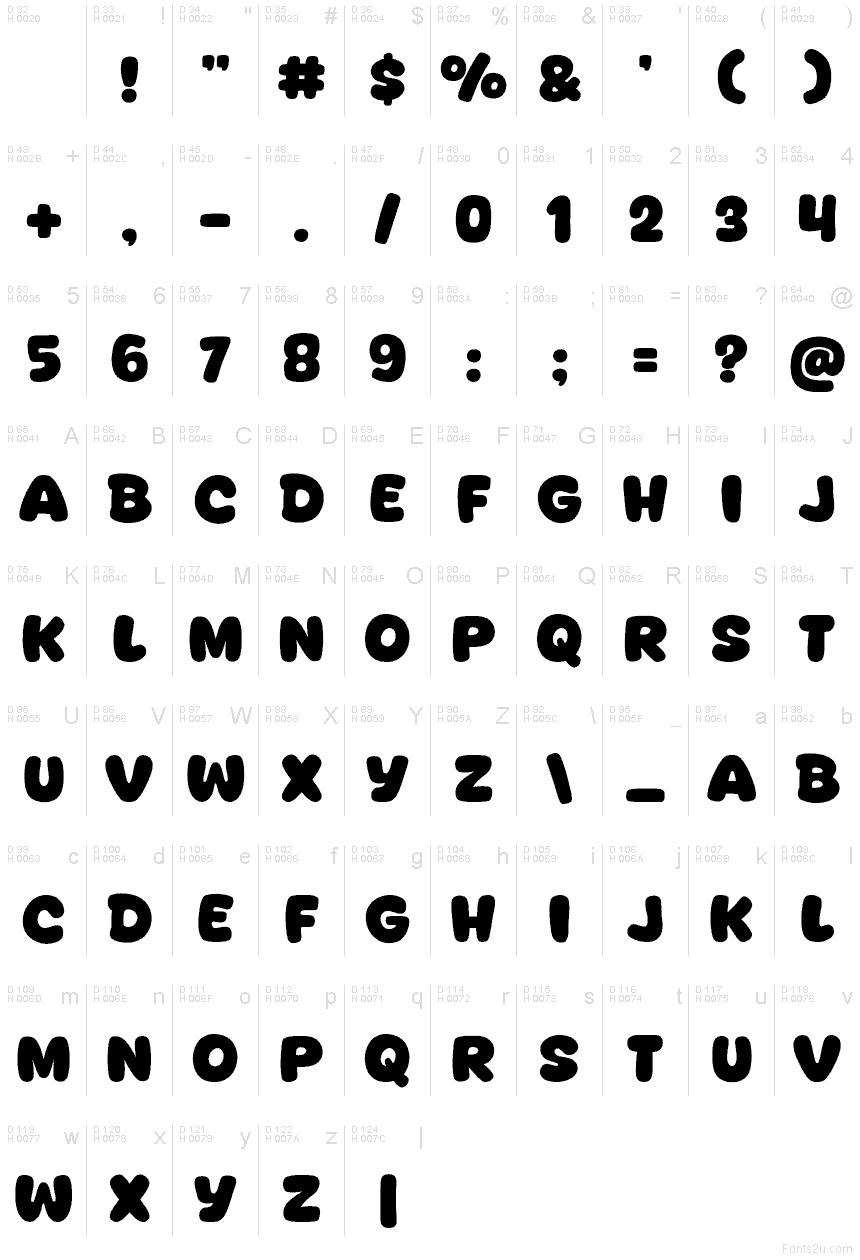
Daily Bold
Daily Bold font by Khurasan is a free cartoon display font with a friendly appearance and casual vibe. Uniform thick rounded letters with an amiable character set of this typeface are perfect for sending cheerful and positive messages to readers.